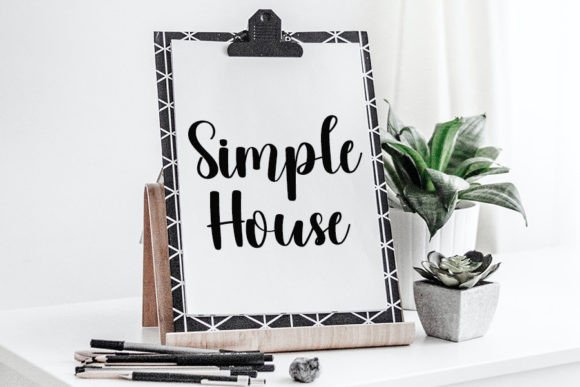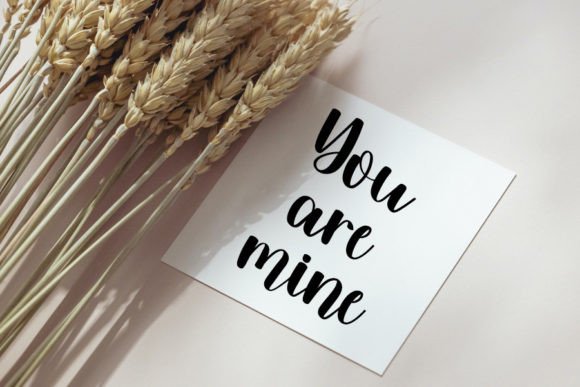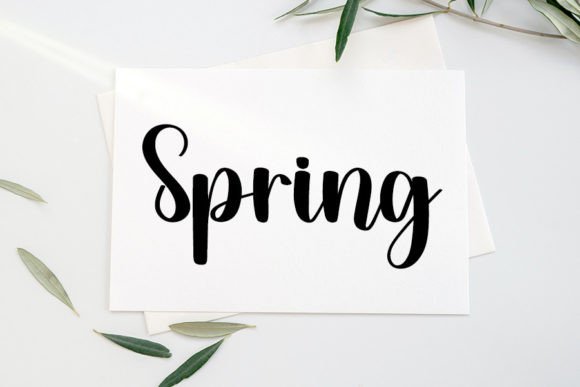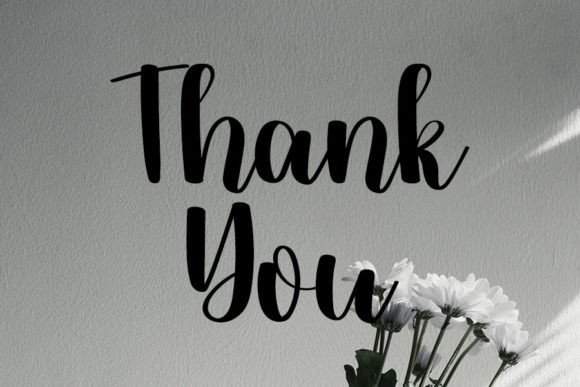
The Perfect Font for Your Holiday Projects
As a designer, have you ever found yourself stuck in a creative rut, searching for the perfect font to elevate your project? I know I have! And then, it hits you – that perfect combination of elegance and whimsy that makes your design pop. For me, that moment came when I discovered the Holiday Font.
This beautiful handwritten font is described as having an elegant touch, making it perfect for adding a personal touch to your favorite projects. With its incredibly distinct and timeless style, you can fall in love with the Holiday Font and use it to create spectacular designs that stand out from the crowd.
As a valuable addition to any designer’s toolkit, the Holiday Font offers a unique and versatile font that’s sure to add a touch of magic to your holiday projects. Whether you’re working on a festive advertisement, a holiday card, or a special occasion invitation, the Holiday Font is the perfect choice to make your designs shine.
Holiday Font Key Features
- Unique Characteristics: The font features a festive and playful design, with intricate details and ornaments that evoke the spirit of the holiday season.
Holiday Font Review
I recently had the chance to work with the Holiday Font, and I must say it’s a mixed bag. Here are my thoughts.
- ✨ The font’s festive and cheerful vibe is perfect for holiday-themed designs. It’s sure to put a smile on your customers’ faces.
- ✨ The font is highly customizable, with a range of sizes, colors, and styles to choose from. This makes it easy to tailor the font to your specific design needs.
- ✨ The font is also quite versatile, and can be used for a variety of holiday-themed projects, from greeting cards to gift tags.
- ⚠️ The font’s design can feel a bit over-the-top, which may not be suitable for more subtle or minimalist designs.
- ⚠️ The font’s high level of customization can also make it feel a bit chaotic, especially for designers who prefer a more streamlined approach.
- ⚠️ The font may not be suitable for projects that require a more serious or professional tone.
Overall, I would say that the Holiday Font is a fun and festive addition to any designer’s toolkit. While it may have some limitations, it’s perfect for holiday-themed projects that require a bit of whimsy and personality.
For a festive touch, use the Holiday Font for holiday-themed graphics, such as Christmas or Halloween designs.
For a more sophisticated look, use the Holiday Font in combination with other design elements, such as patterns or textures.
For a more cohesive look, use the Holiday Font consistently throughout your presentation or document.